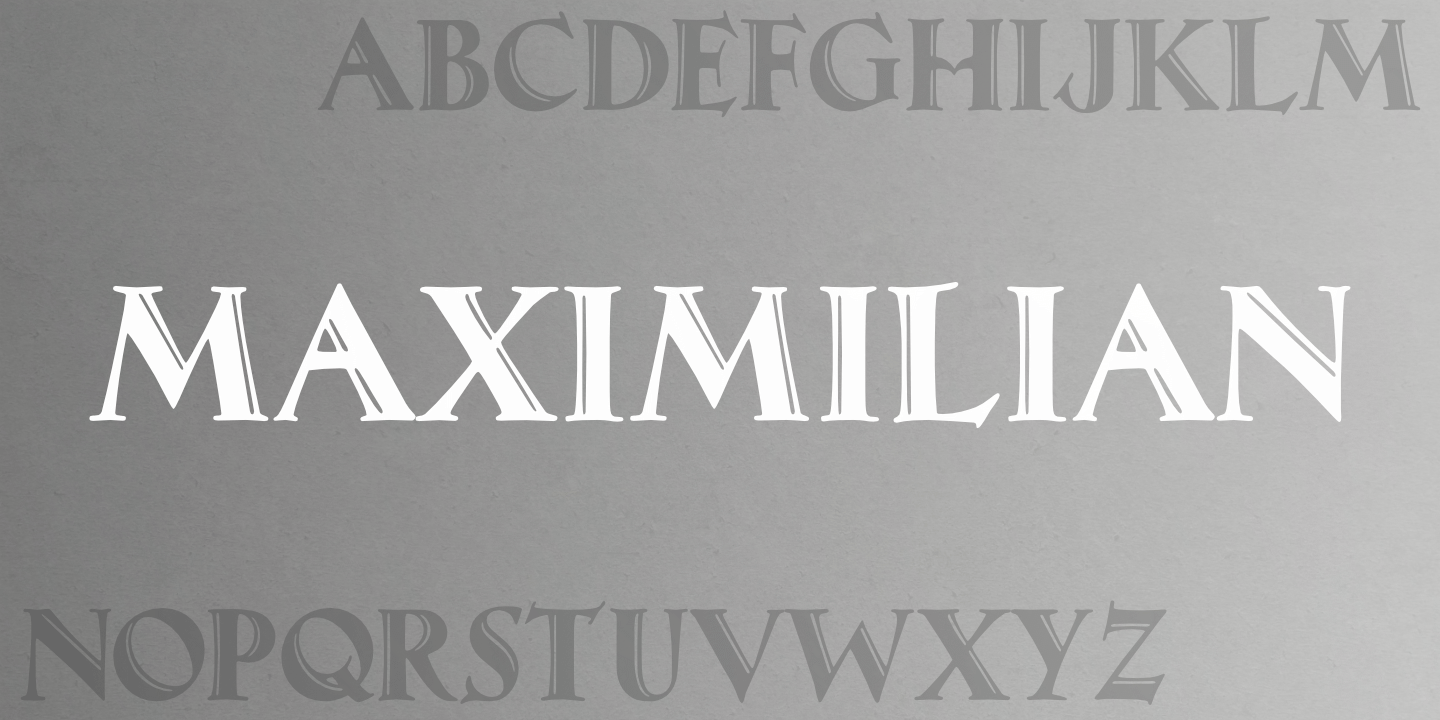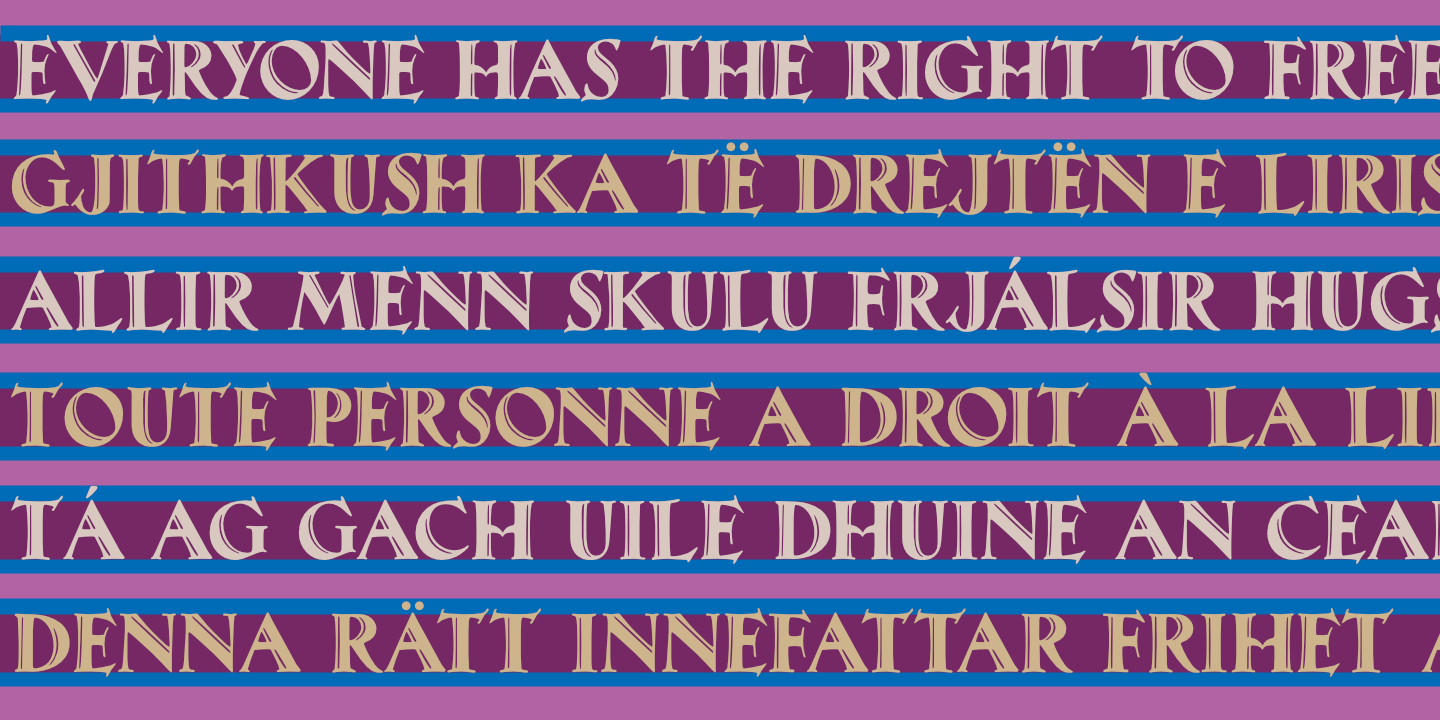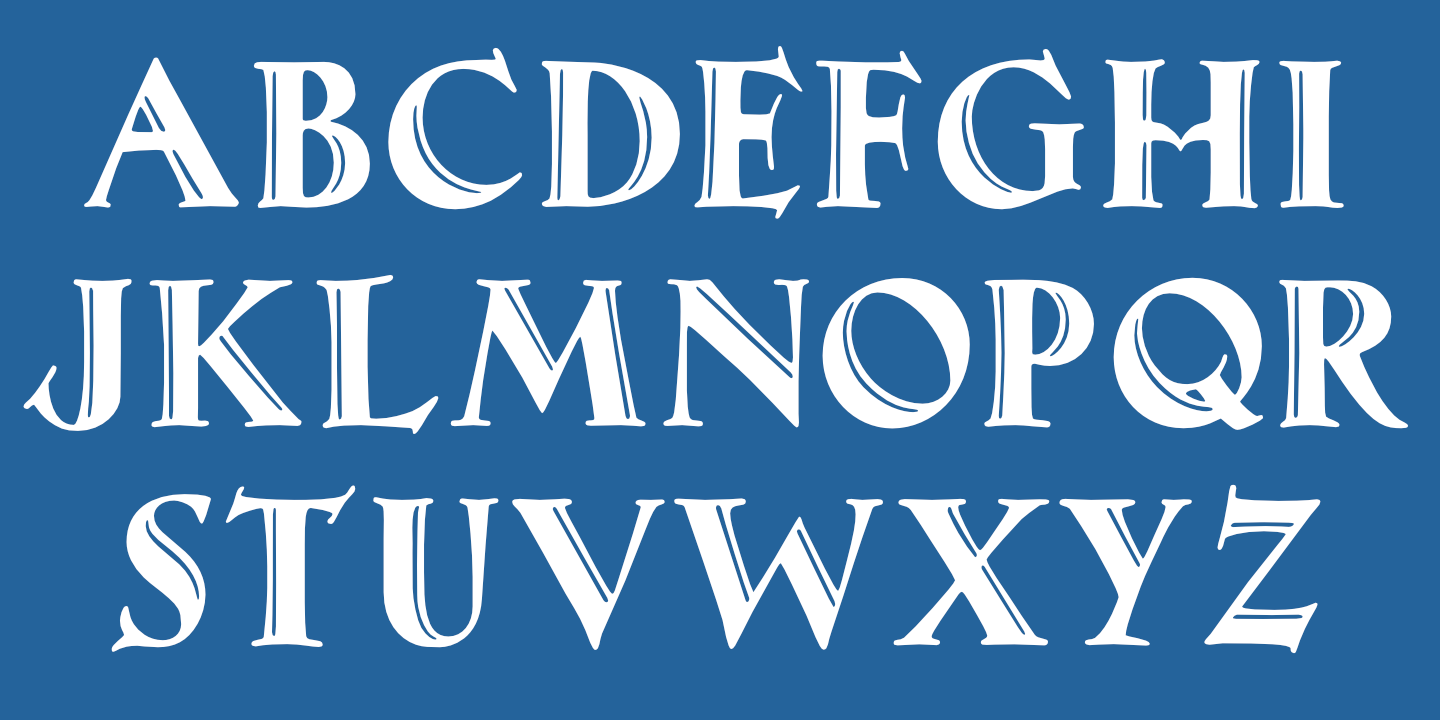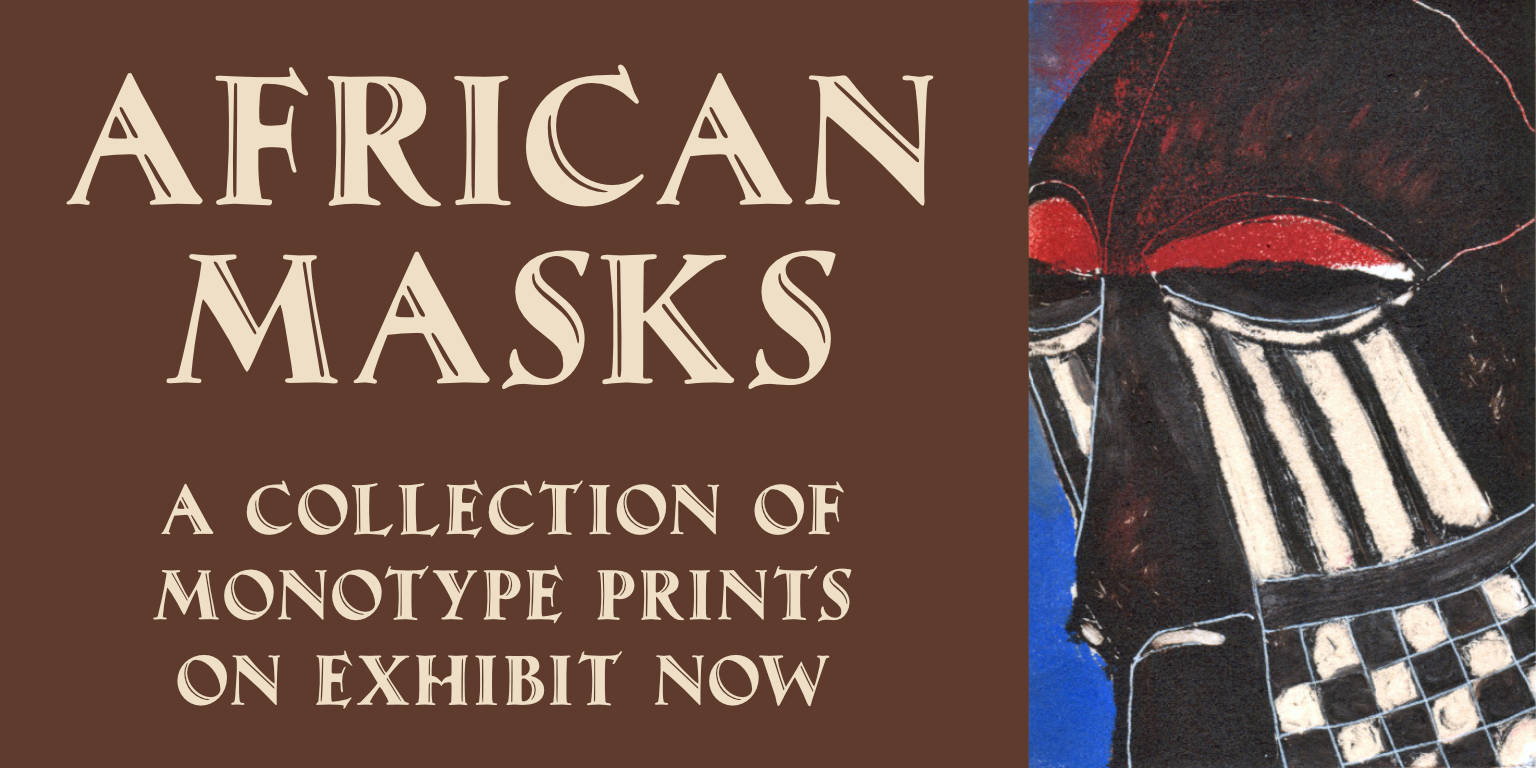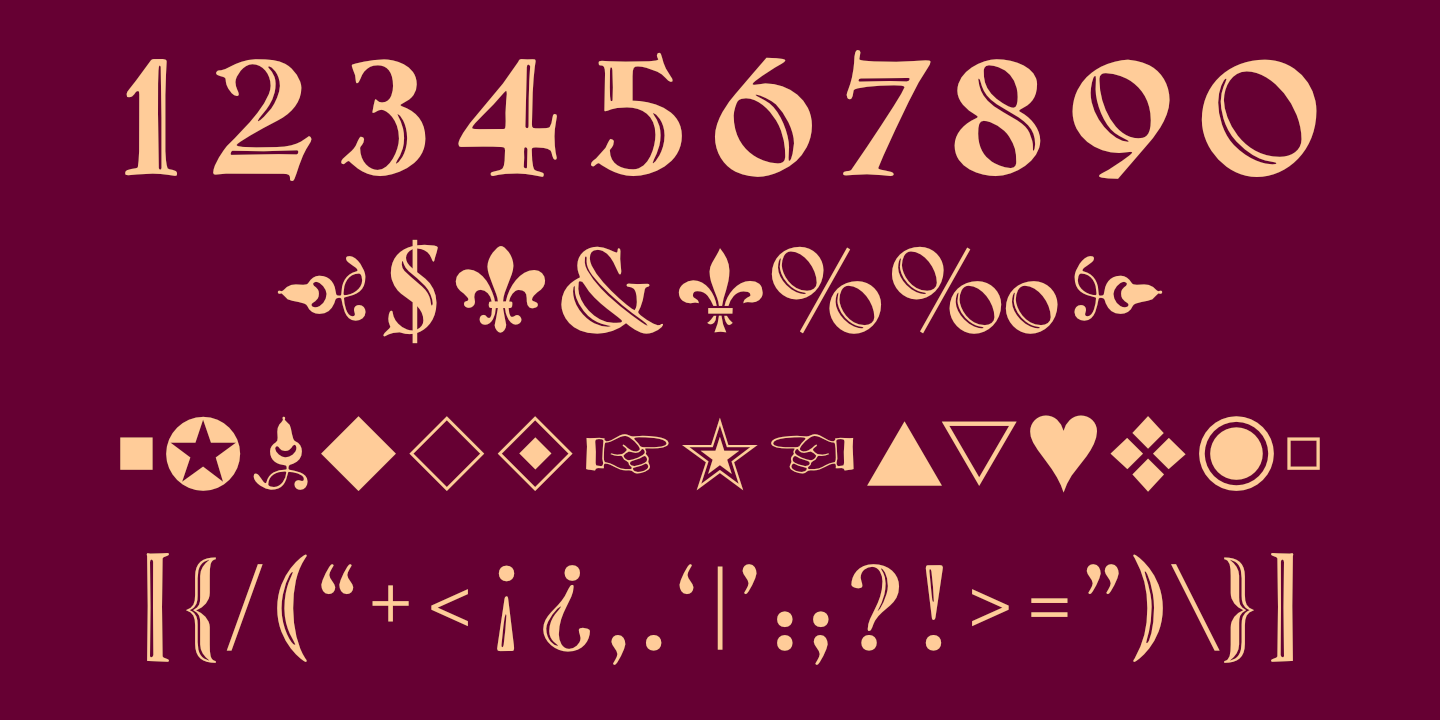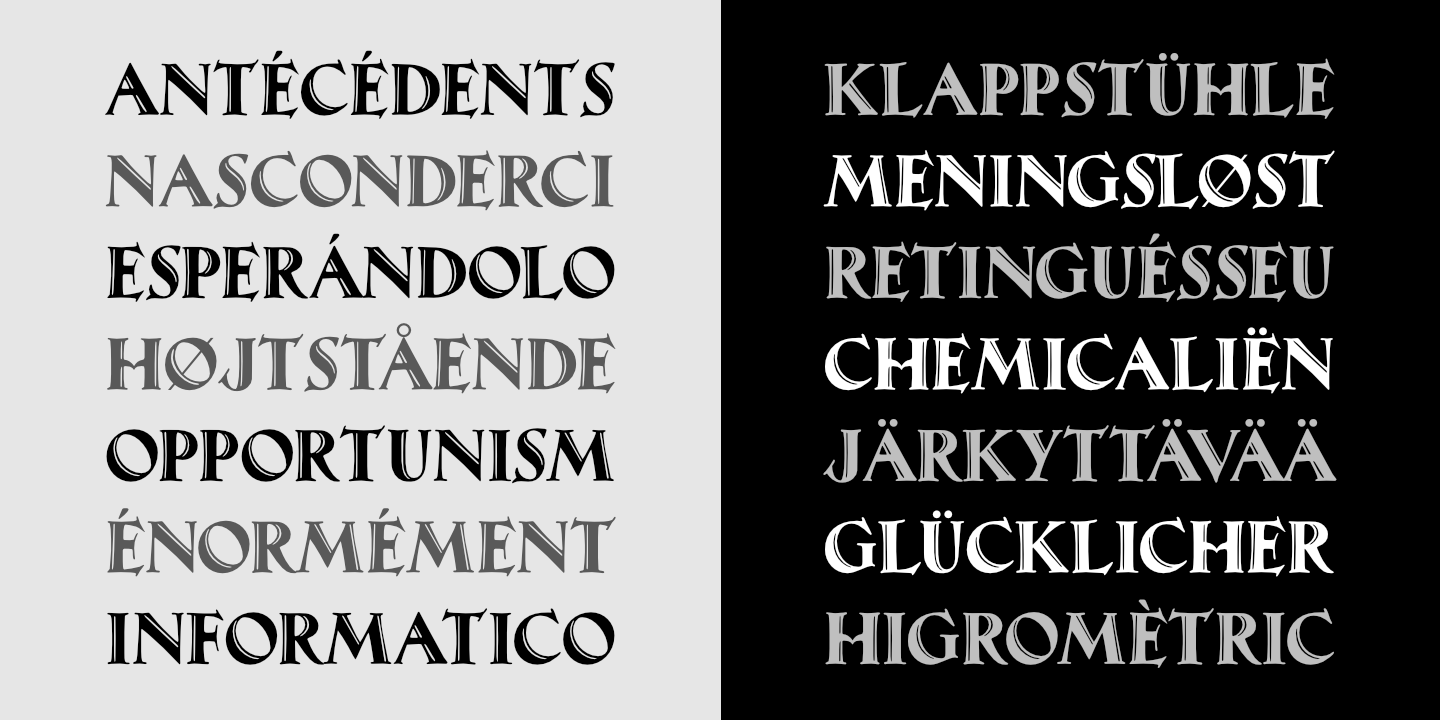
blank Latin Alphabet blank
Maximilian CT: Basic Latin alphabet. blank
Numerals, Punctuation, etc.
Maximilian CT: Numerals, basic punctuation, currency symbols, and a sampling of ornaments.
UDHR
Maximilian CT supports many Western European languages.
Stacked Text
Notice that light text on a dark background appears slightly heavier than dark text on a light background. blank
Heirloom Tomatoes
African Masks
Fontname poster